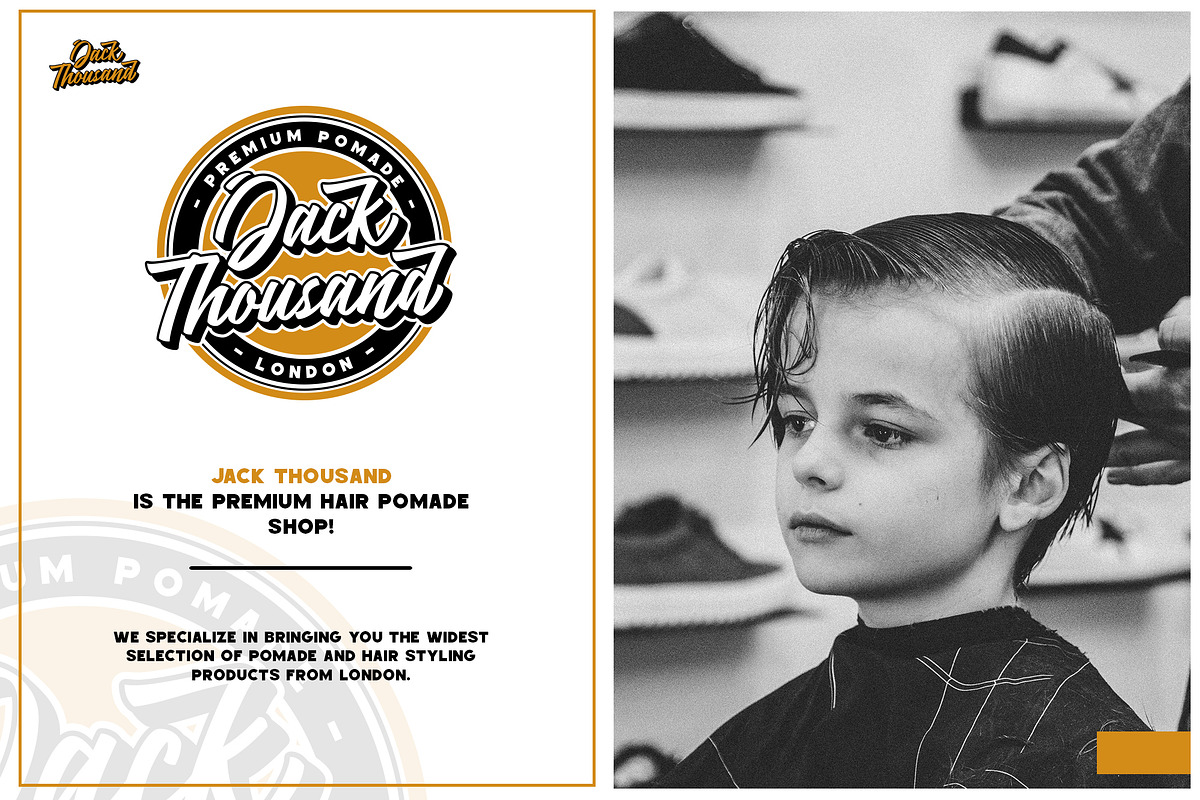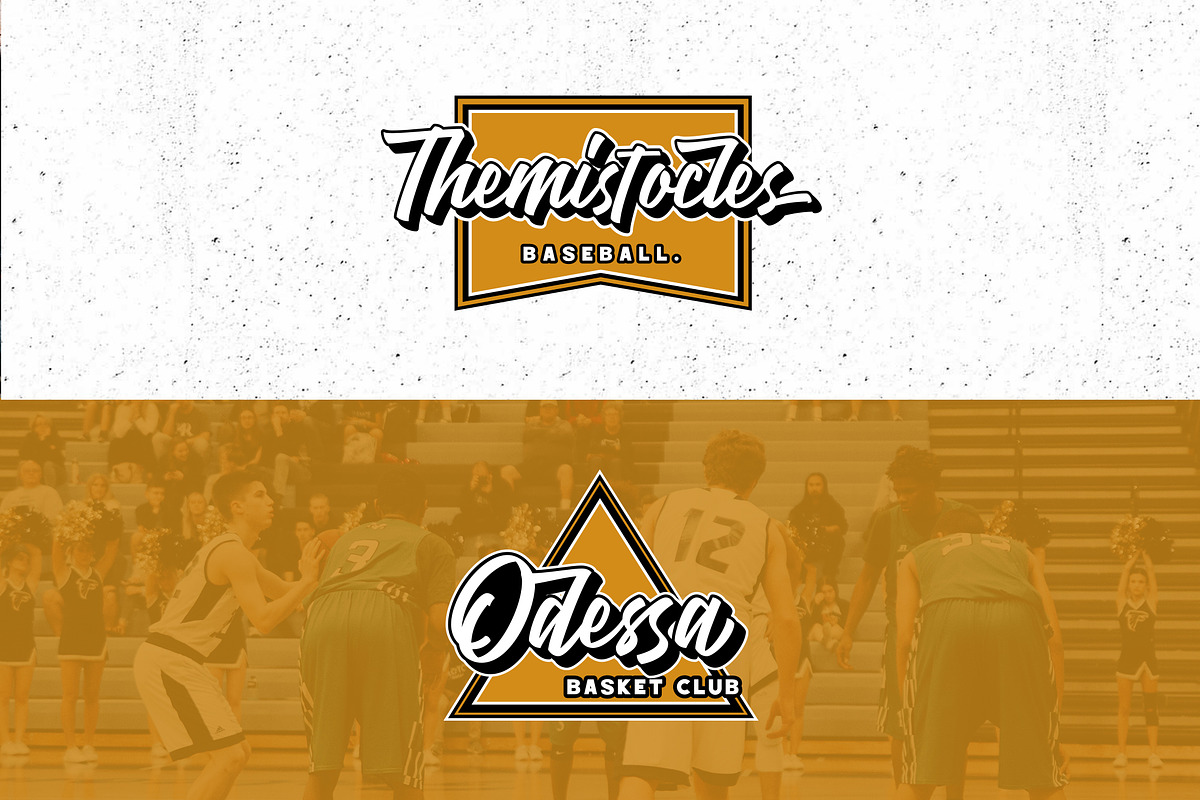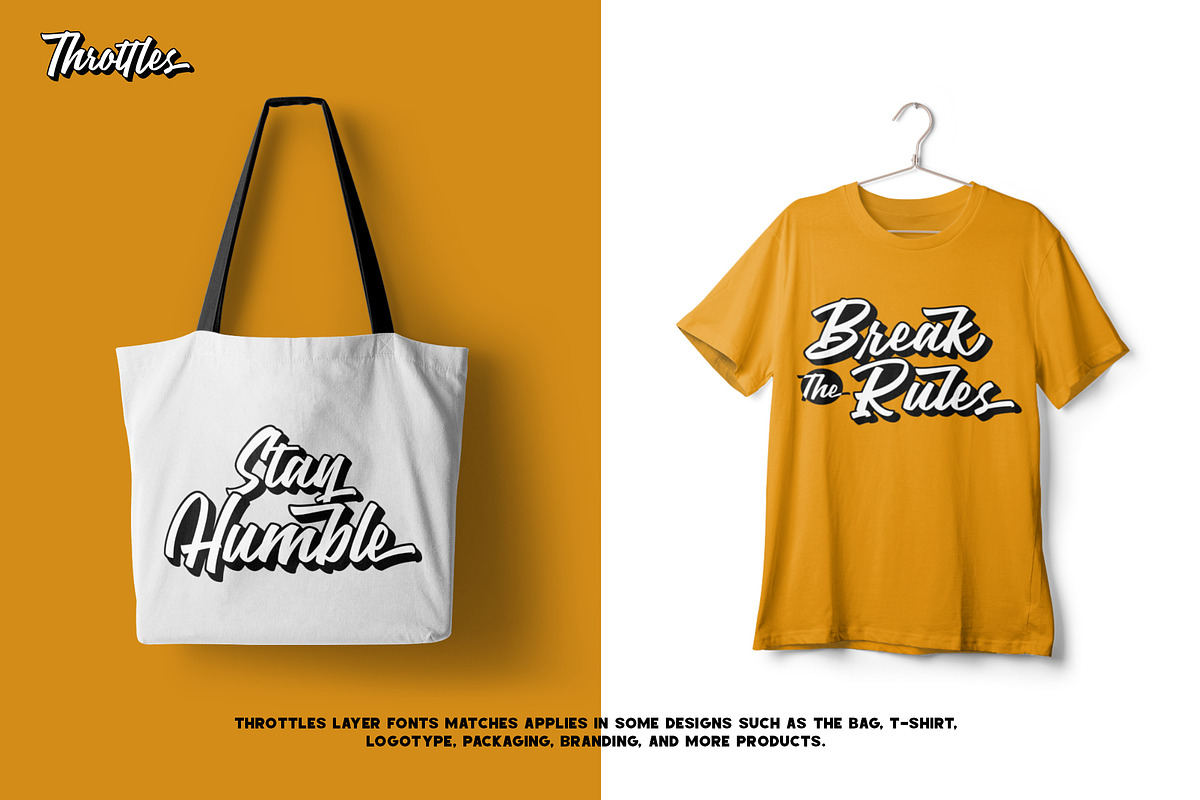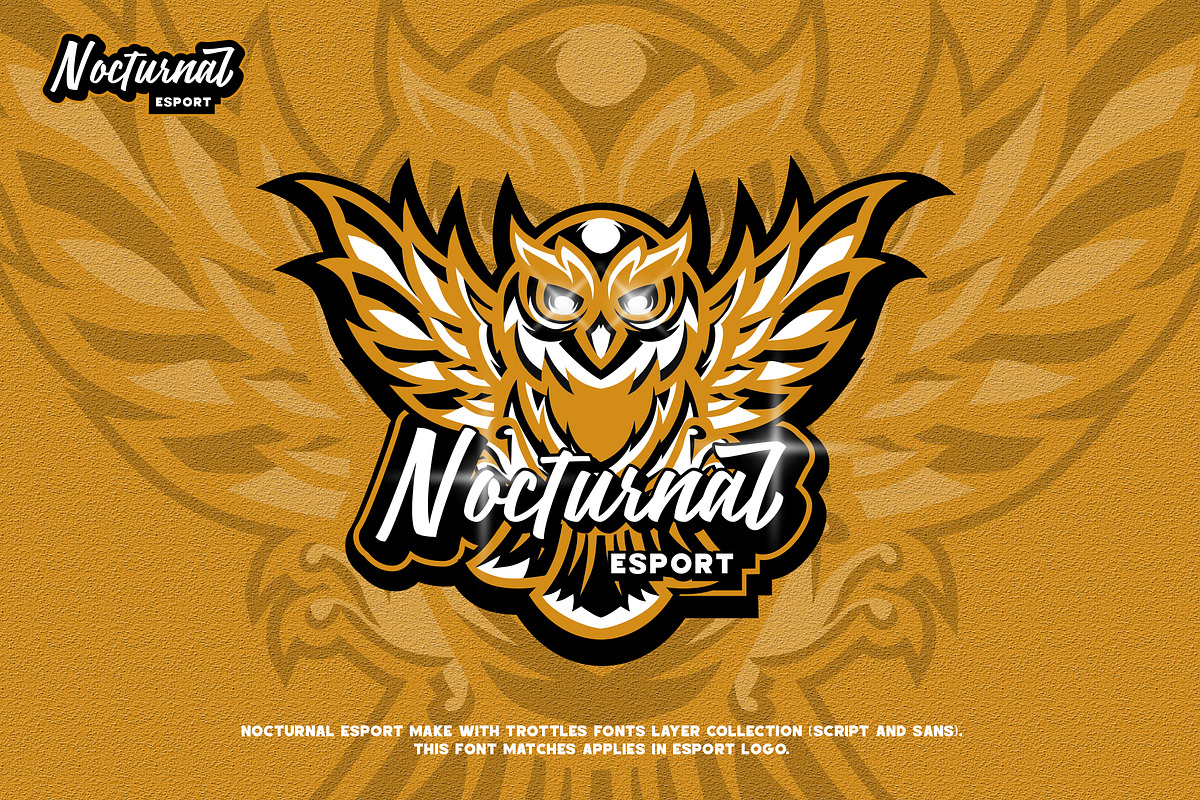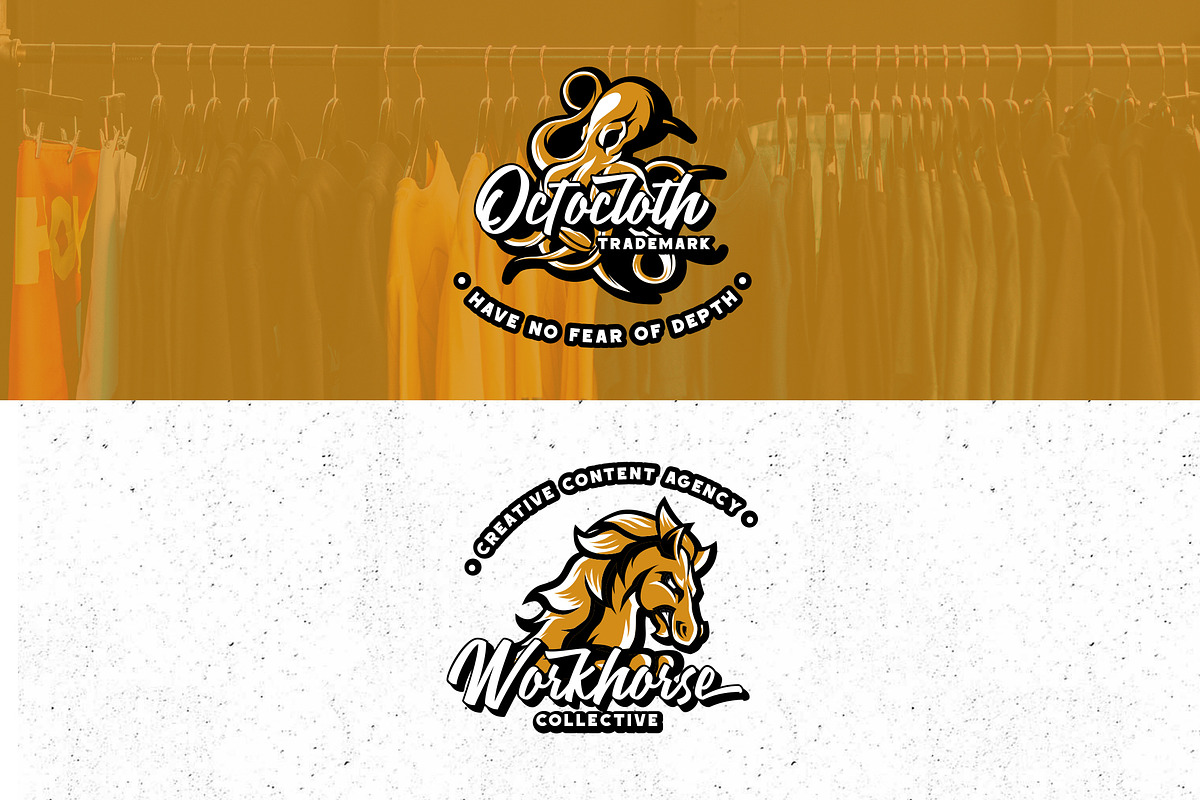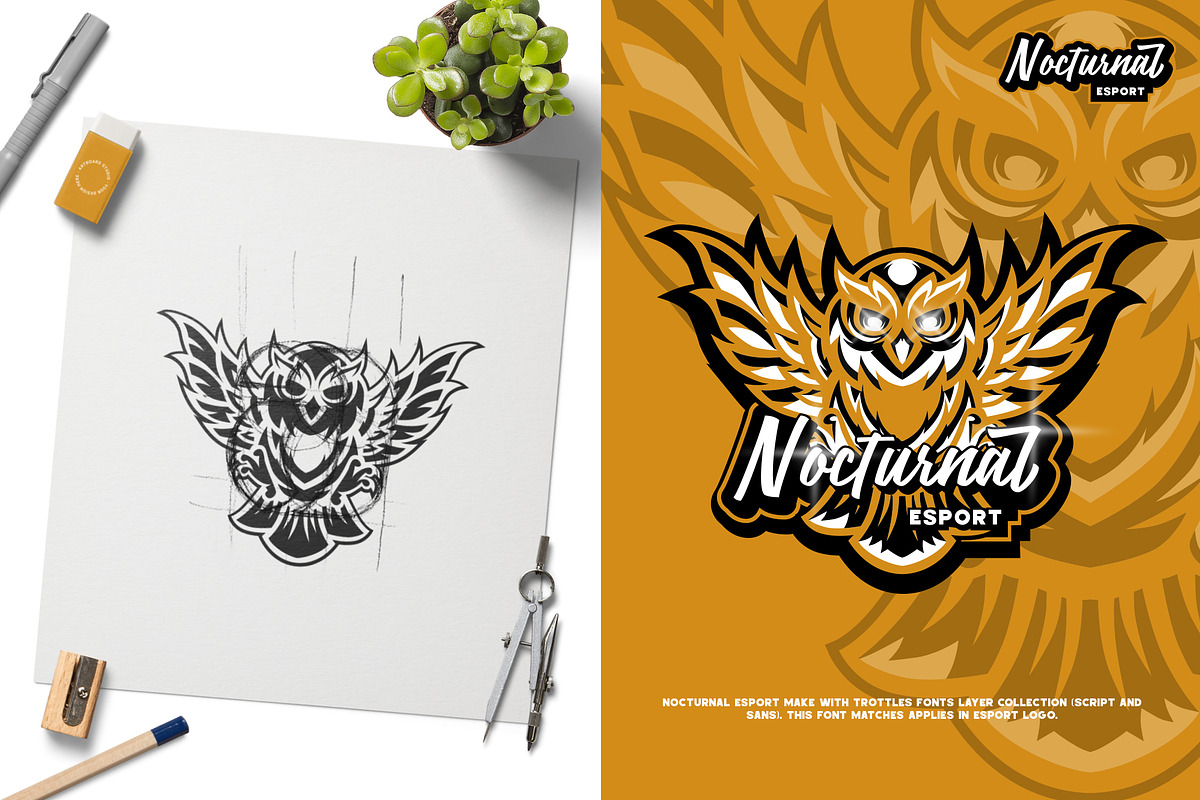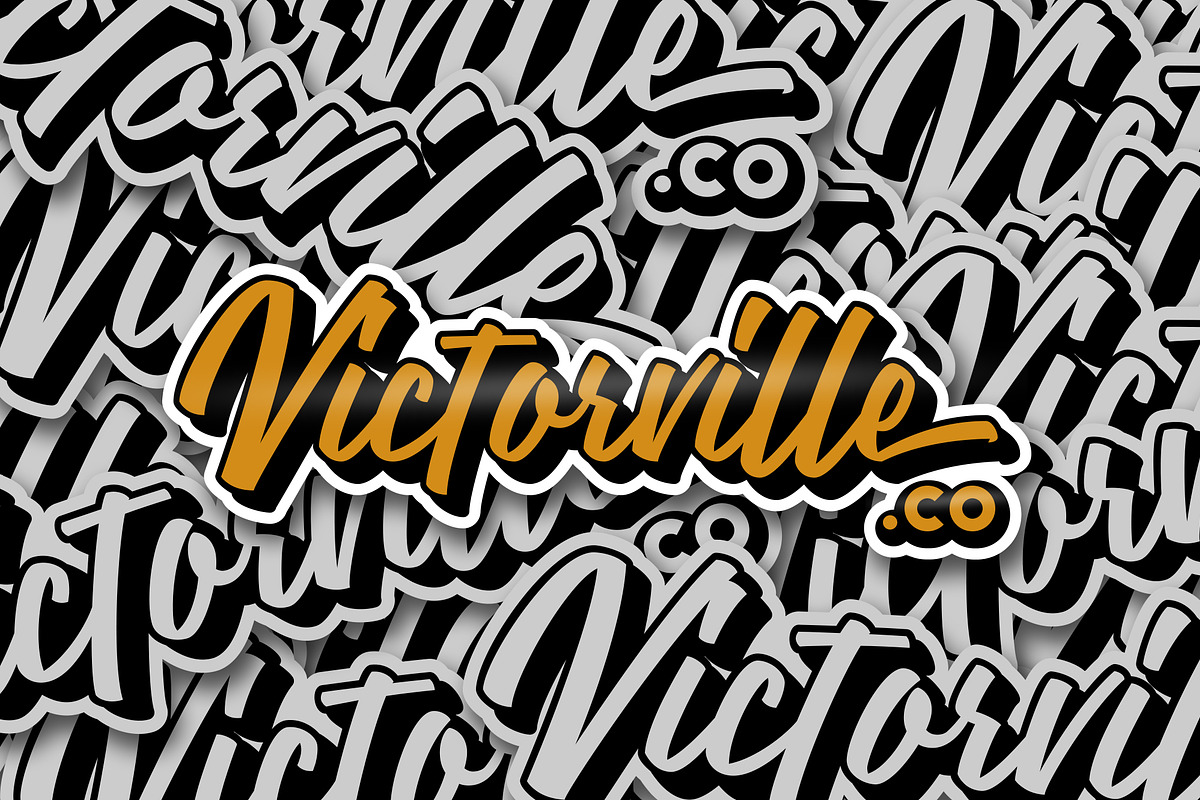
Throttles Font Duo
Let's create your logotype with a touch of Trottles Font.
The project of Trottles created specifically for purpose logotype. This font comes with layered system (regular and shadow). Alternate characters has about 3 set (Contextual Alternates, Stylistic Alternates, and Swash). For extras Trottles has Sans Font for perfect combination. In addition to the purposes of logotype Trottles Font can also be applied in the esport logo, sticker, apparel, bag, magazine, website headlines, packaging, branding, quotes, business cards, and more. We hope this can make inspire for your work.
Uppercase, lowercase, numeral, punctuation and symbol
Multilingual support ŽžŠŒšŸÀÁÂÃÄÅÆÇÈÉÊËÌÍÎÏÐÑÒÓÔÕÖØÙÚÛÜÝßàáâãäåæçèéêëìíîïðñòóôõöøùúûüýÿ
Contextual alternates, and Stylistic alternates
- This font comes with layered system (regular and shadow).
- Alternate characters has about 3 set (Contextual Alternates, Stylistic Alternates, and Swash).